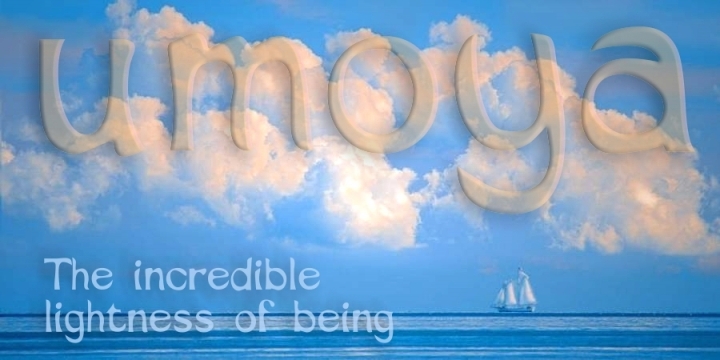
Umoya is a modern and fluid African font.
Its name means ‘spirit’ in the Zulu language and it is also the word used for ‘air’.
It is best used for an ethereal, magical look with tribal undertones.
The font is fully professional: carefully letterspaced and kerned.